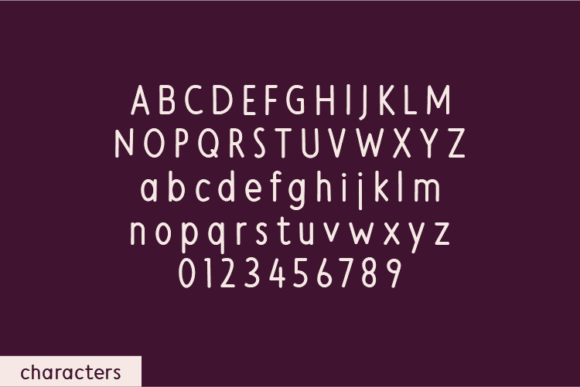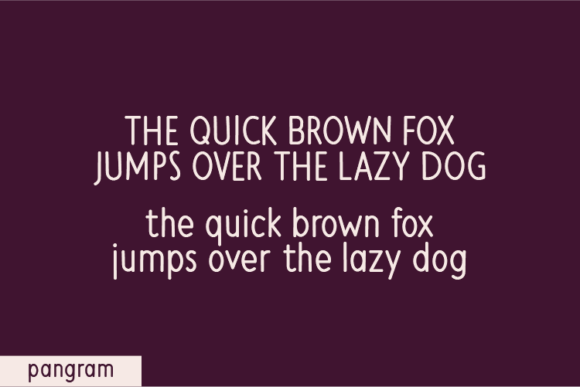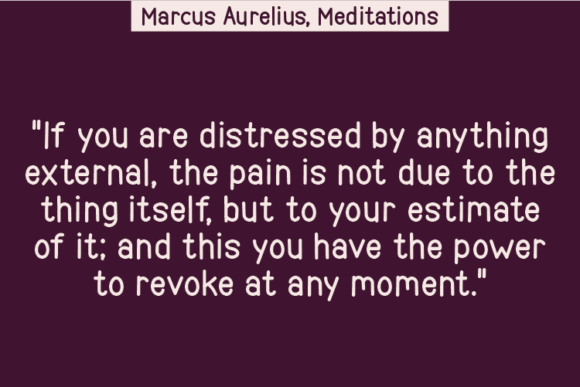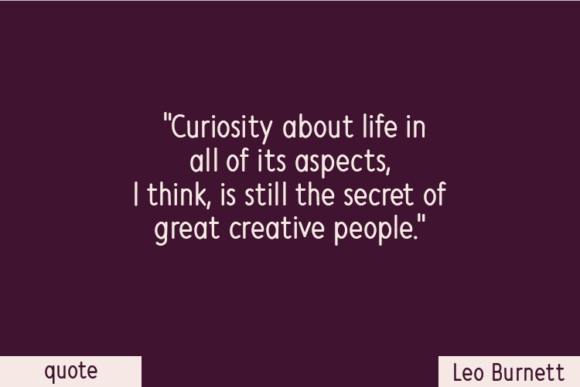
About Instinctual Font
Instinctual Font Download introduces a handwritten typeface designed with an organic and authentic touch. Each letter was created without altering a single node, which gives the typeface a completely natural appearance. This careful design process allows Instinctual to feel both artistic and unique, making it a strong addition to any creative project.
A Natural and Distinctive Handwritten Look
Instinctual stands out because of its natural construction. Unlike many handwritten fonts that appear overly polished, this font maintains the imperfections and variations that make handwriting engaging. These details bring warmth and charm to any design.
You can use Instinctual in a variety of creative applications, such as:
Quotes and motivational posters
Casual t-shirt and tote bag designs
Journals, planners, and greeting cards
Logos, packaging, and branding projects
Social media graphics and blog headers
Its versatility means you can rely on it for both playful and professional design contexts.
Why Designers Choose Instinctual
Designers often choose Instinctual for its balance of authenticity and usability. Its strokes flow smoothly, yet the texture feels handcrafted. This unique combination gives projects a friendly yet stylish tone. Transitioning from casual layouts to elegant branding is effortless, making it a font you’ll return to repeatedly.
Unlike generic script fonts, Instinctual carries personality in every curve. This makes it perfect for designers who want to create standout projects without losing clarity or readability.
Perfect for Print and Digital Applications
Instinctual shines across different formats. On packaging, it adds an character. On apparel, it provides stylish. On social media graphics, it conveys energy and personality. Whether you’re designing small labels or large posters, the font remains crisp, clear, and visually striking.
Because of its natural rhythm, Instinctual is also ideal for inspirational quotes and personal notes. It feels handwritten but enough to look professional in marketing and branding.
If you’re searching for a script that blends natural artistry with versatility, Instinctual Font Download is the perfect fit. It brings authenticity to your work while remaining easy to use across various platforms.
Whether you’re working on apparel, social logos, or packaging, Instinctual provides a unique balance of creativity and . Its handcrafted details ensure that your text always feels alive and engaging.